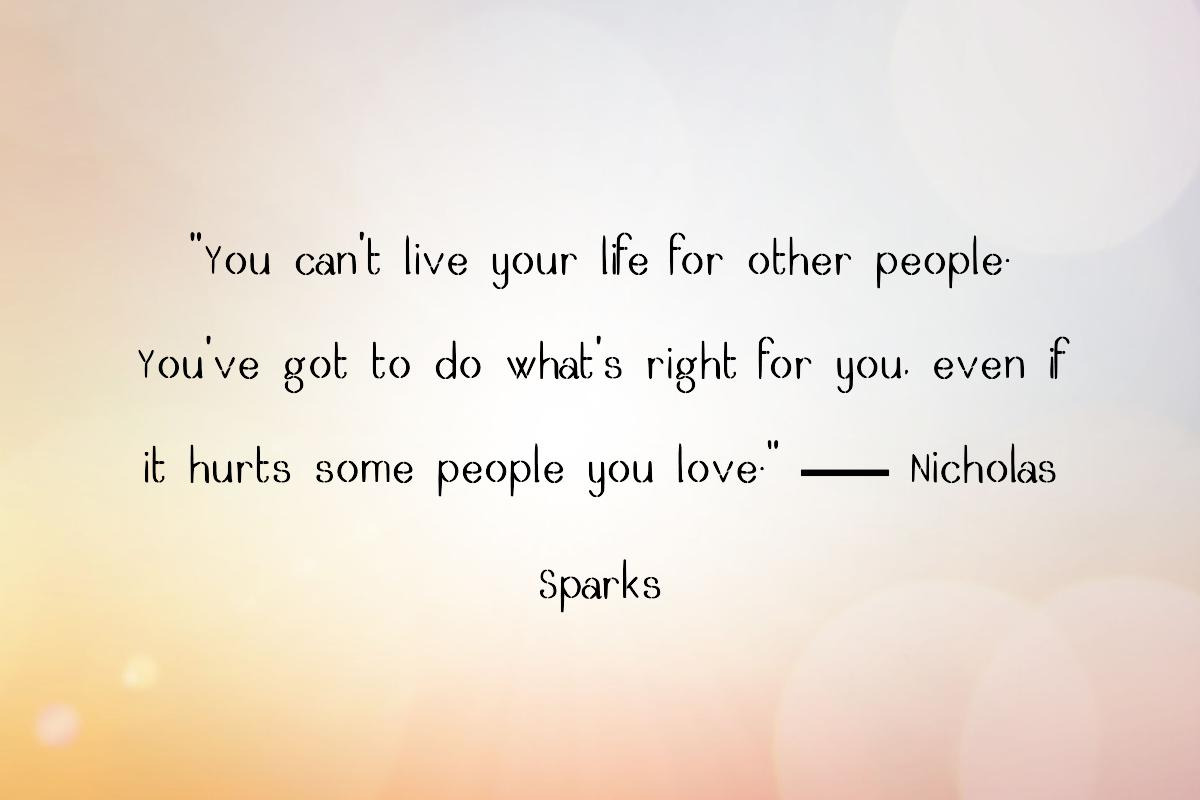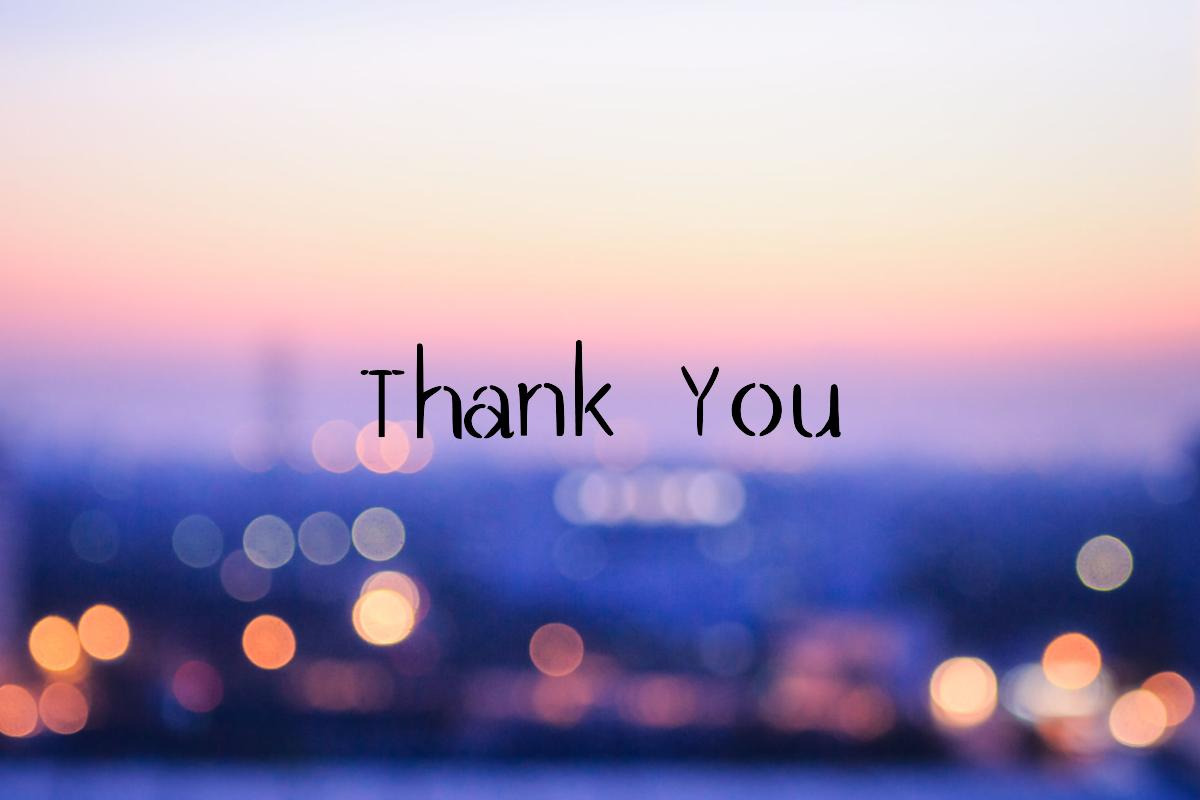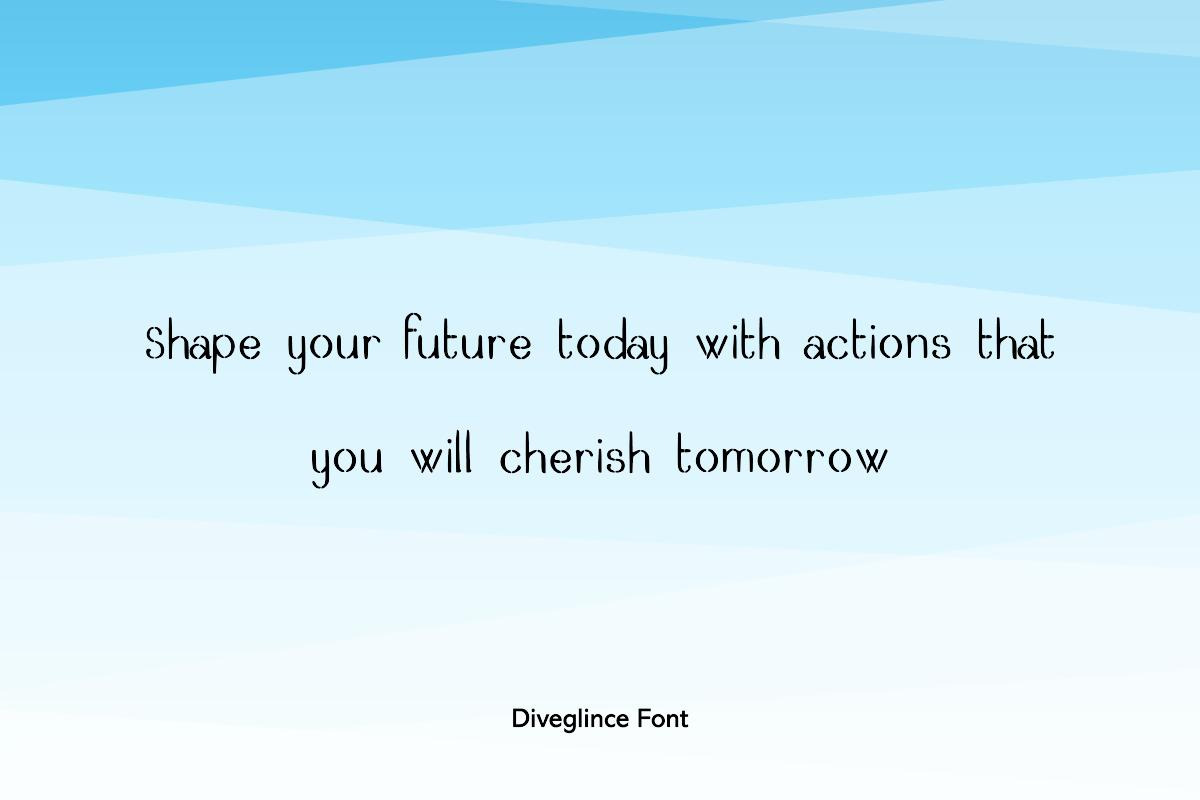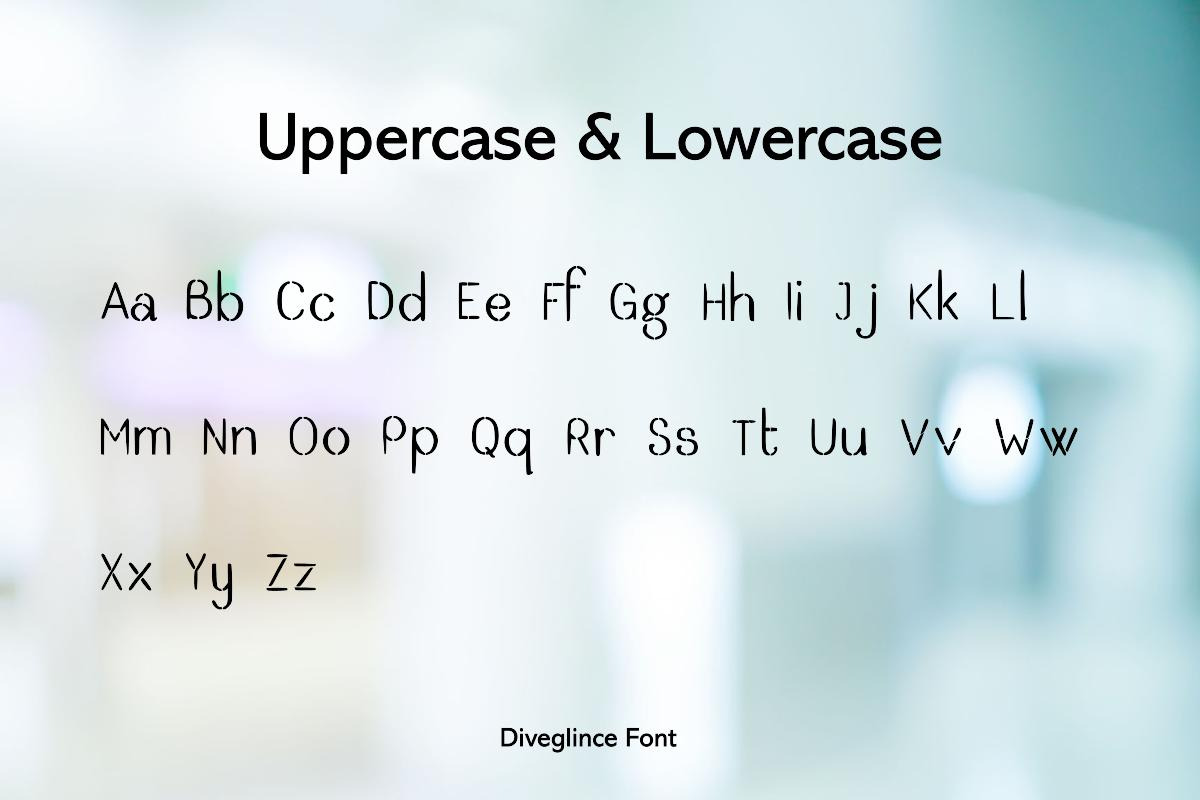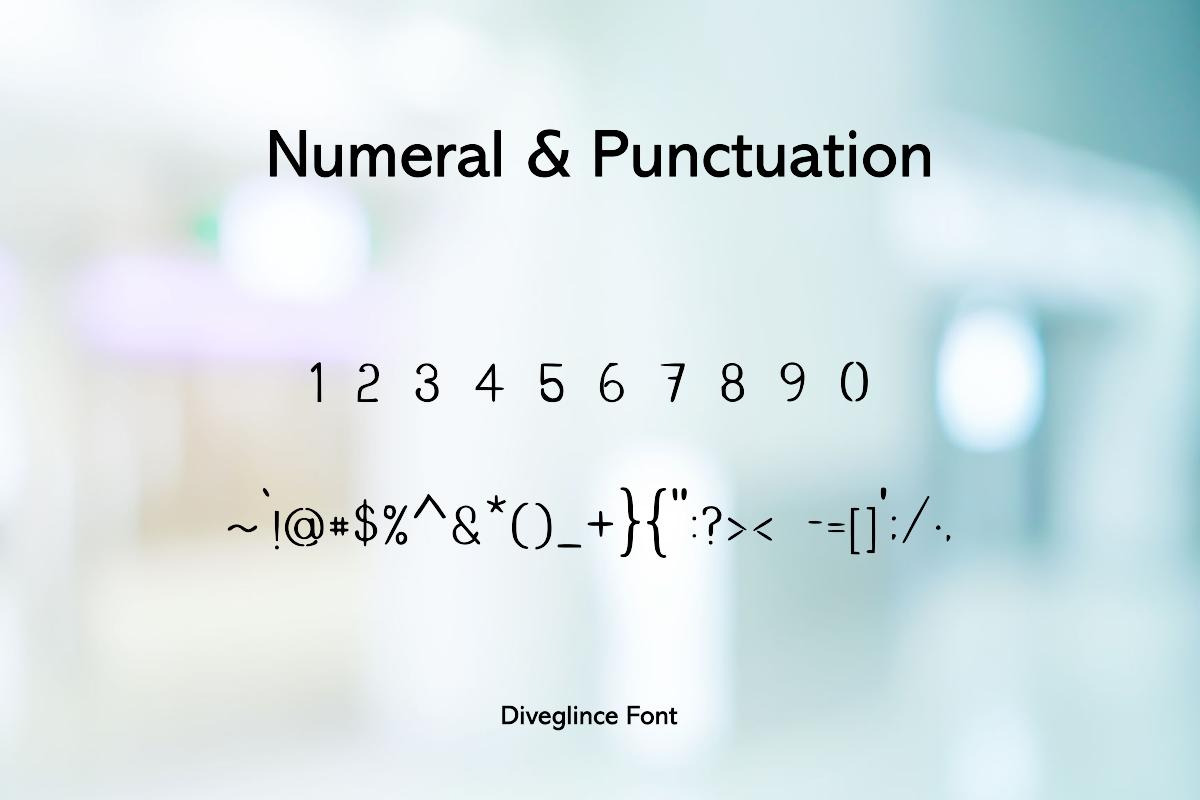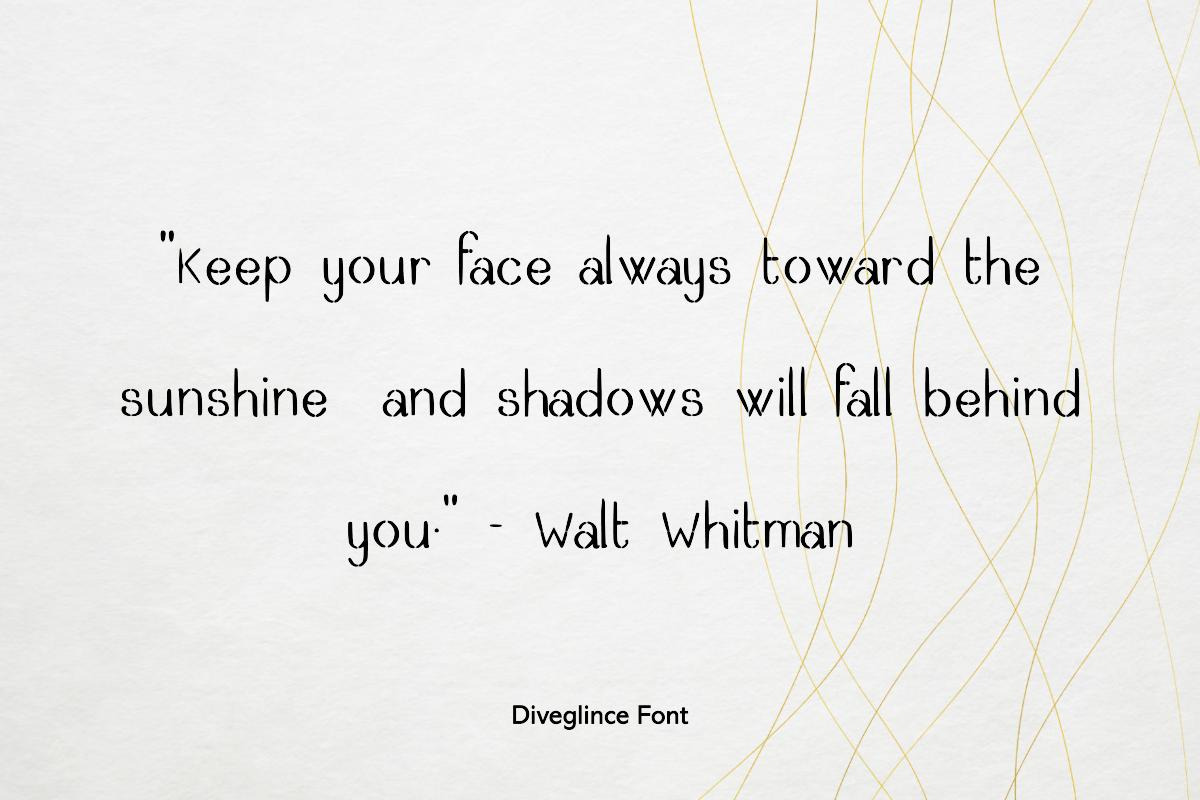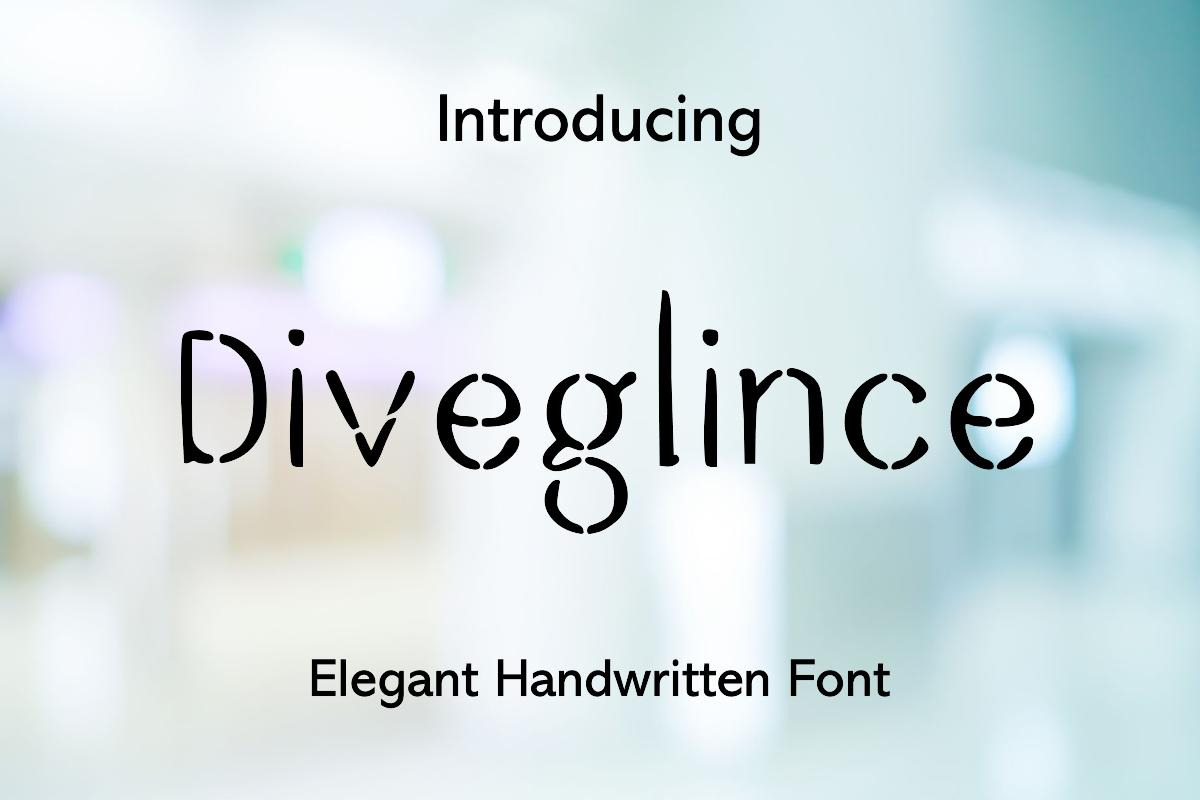
Diveglince Modern Handwritten Font
'Diveglince' – Where Elegance Meets Expression
Dive into the world of 'Diveglince,' a handwritten font that seamlessly blends elegance with expressive flair. Diveglince is designed to capture the spontaneity of ink flowing across paper, bringing a dynamic and personal touch to every word.
Ideal for:
- Artistic Branding: Create a brand identity that's as unique and expressive as your vision.
- Personalized Stationery: Elevate your stationery with a font that's both sophisticated and personal.
- Engaging Advertisements: Attract attention with ads that feature a font with character and style.
- Creative Content: Give your content a signature look that's memorable and distinctive.
With Diveglince, your designs will not just communicate—they will connect, resonate, and leave a lasting impression.